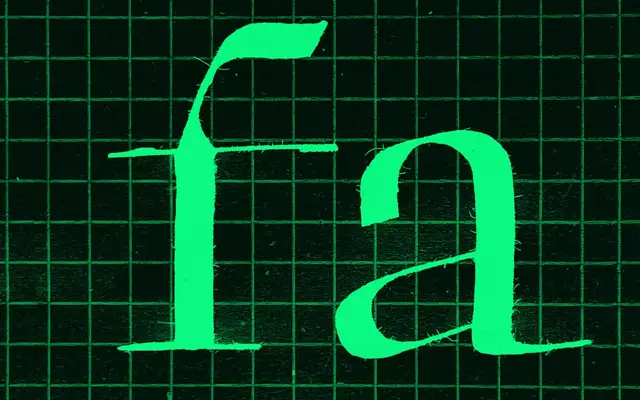
A broad-nib-derived serif from Luzi Type, offered in separate Display and Text versions with a variable axis spanning Light to Black.
Grounded in broad-nib pen exploration, Albaro carries the rhythm and stroke contrast of calligraphic writing into a well-structured type family. The Display version splits into Normal and Tall x-height variants for expressive headline work, while the Text version softens contrast and opens spacing to hold legibility at smaller sizes. Both subfamilies are available as variable fonts, with the Display version carrying an additional axis for the Normal-to-Tall x-height range.
Albaro derives its forms directly from a broad-nib pen, giving it a calligraphic warmth with visible stroke contrast. It falls within the humanist or calligraphic serif tradition, differentiated by its two optical versions for display and text use.